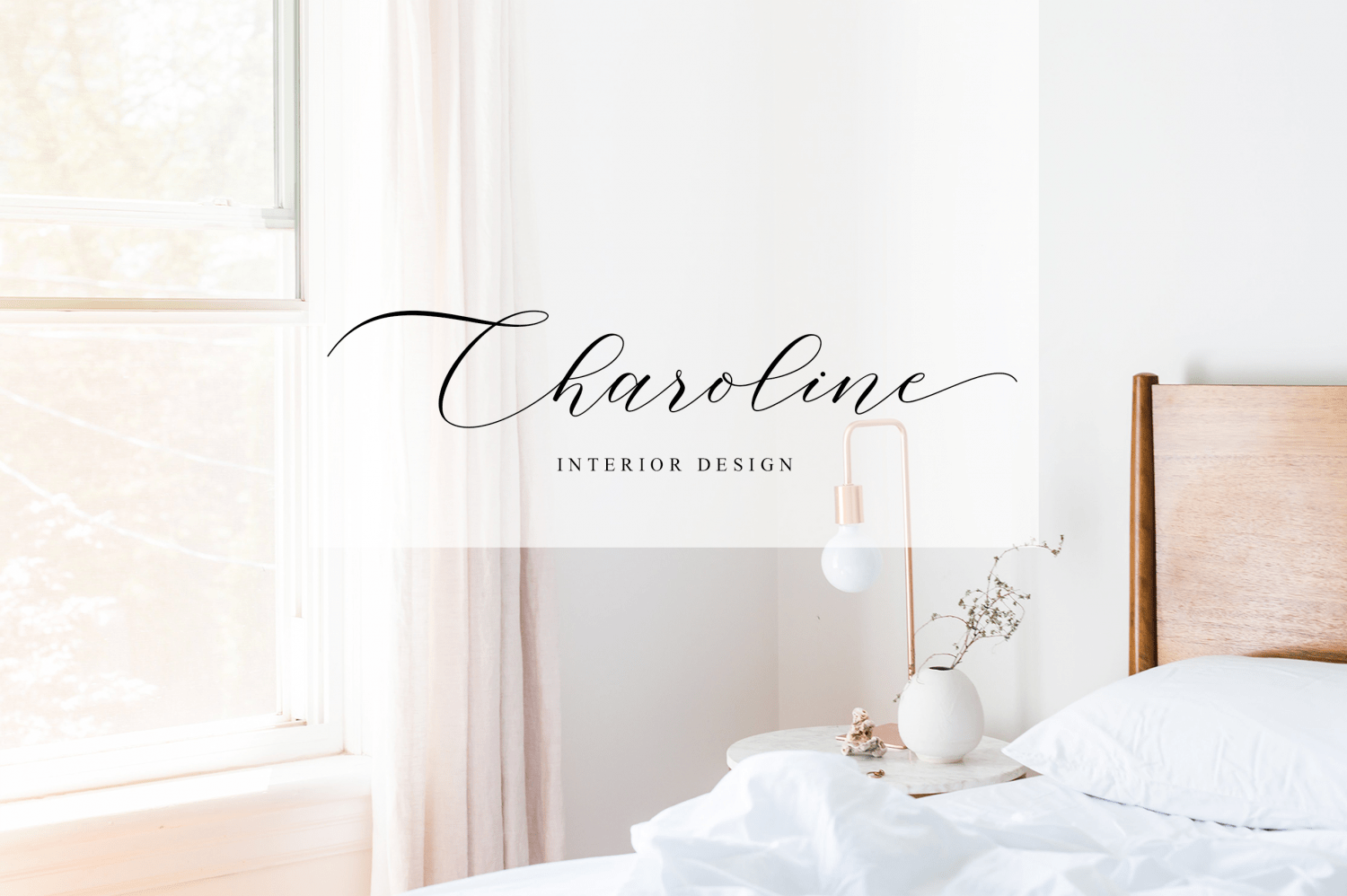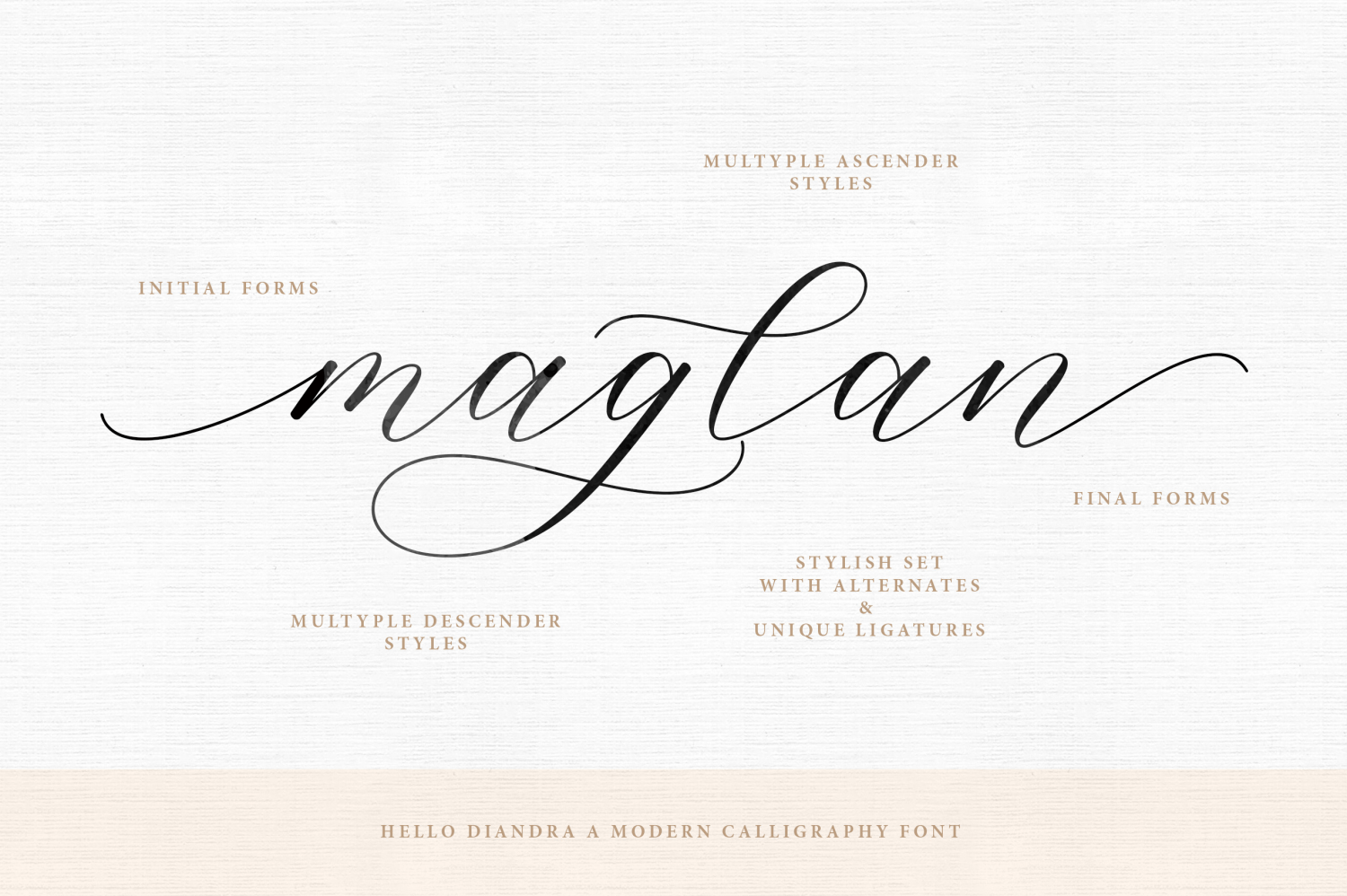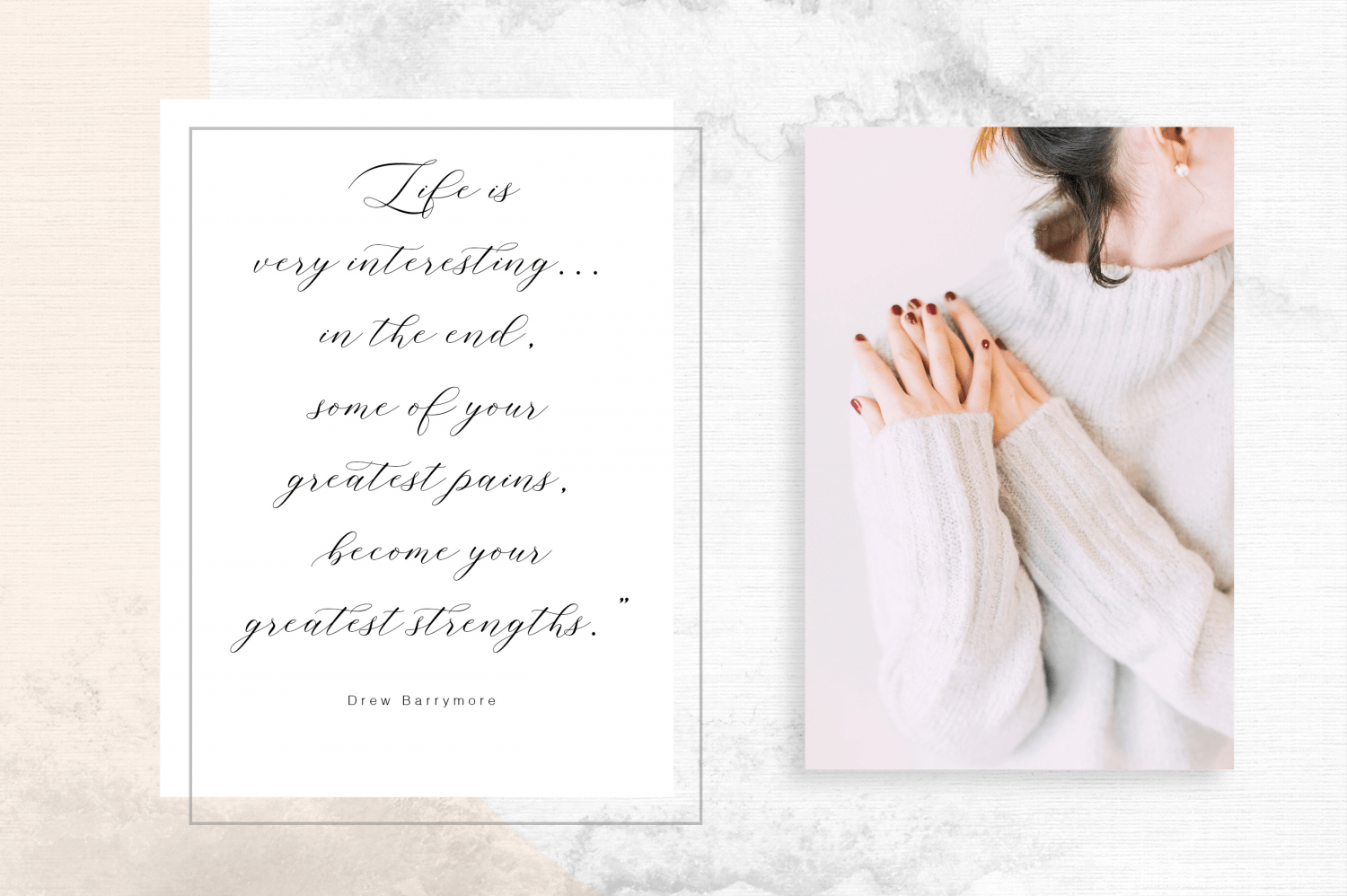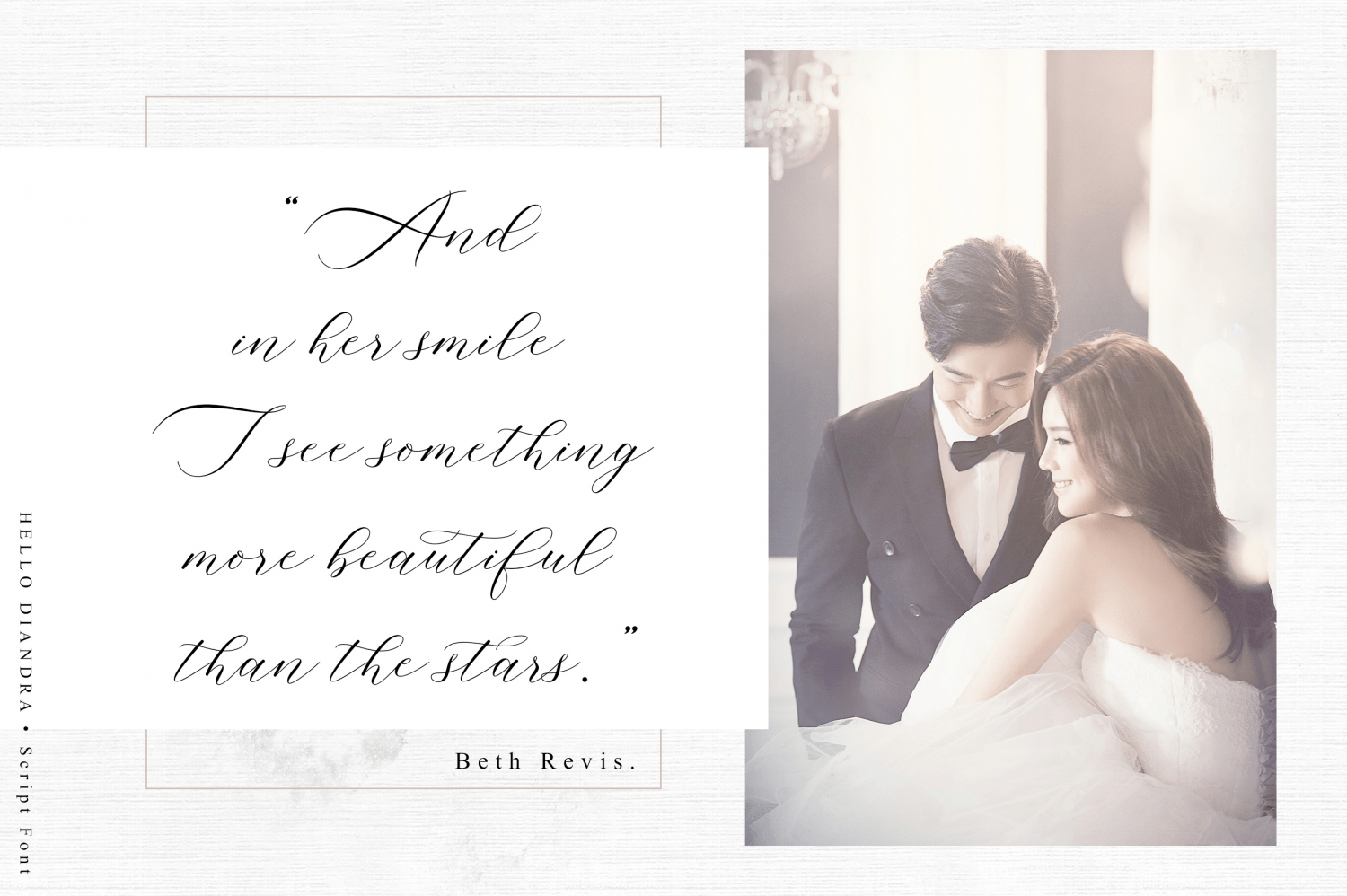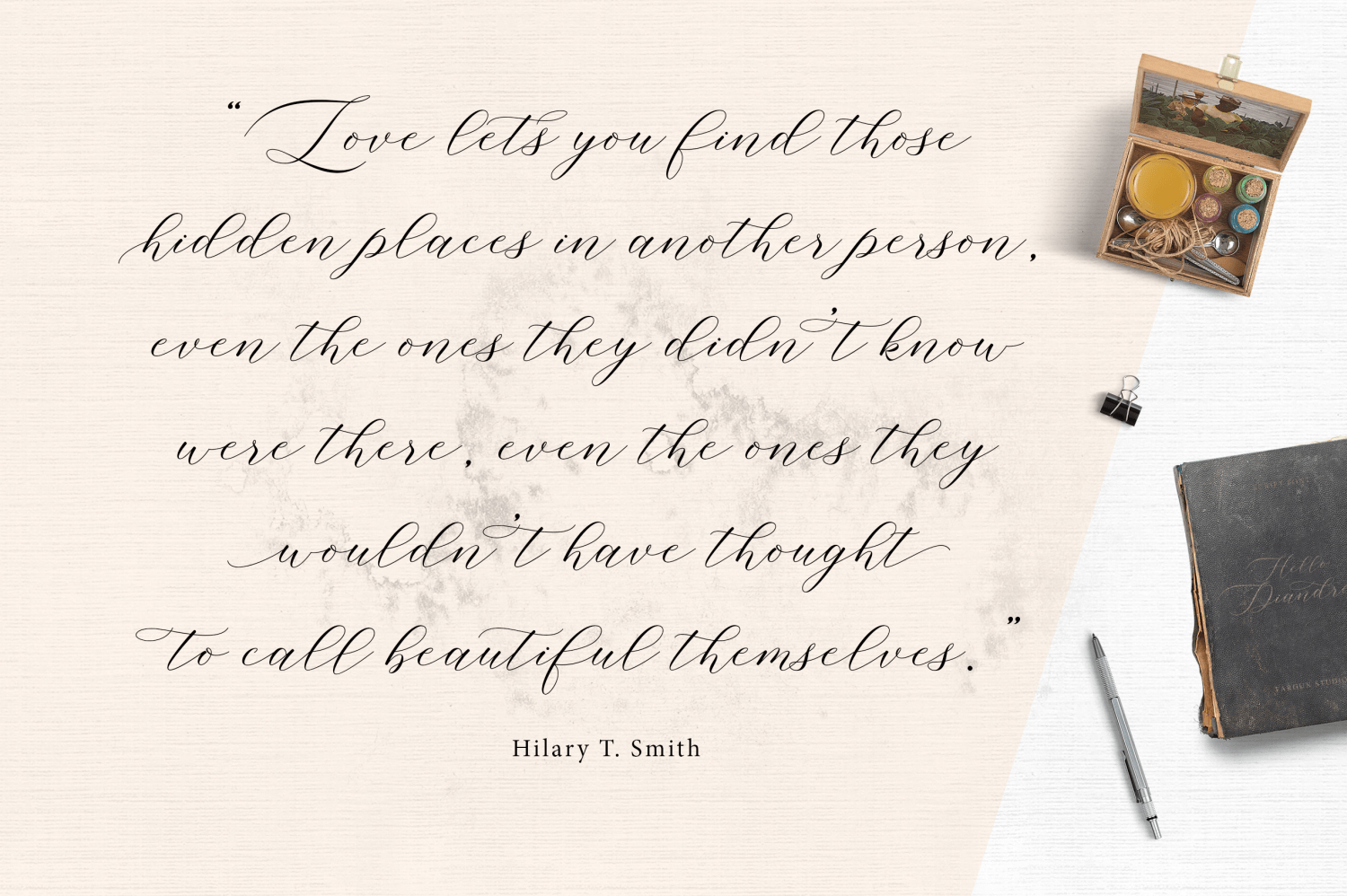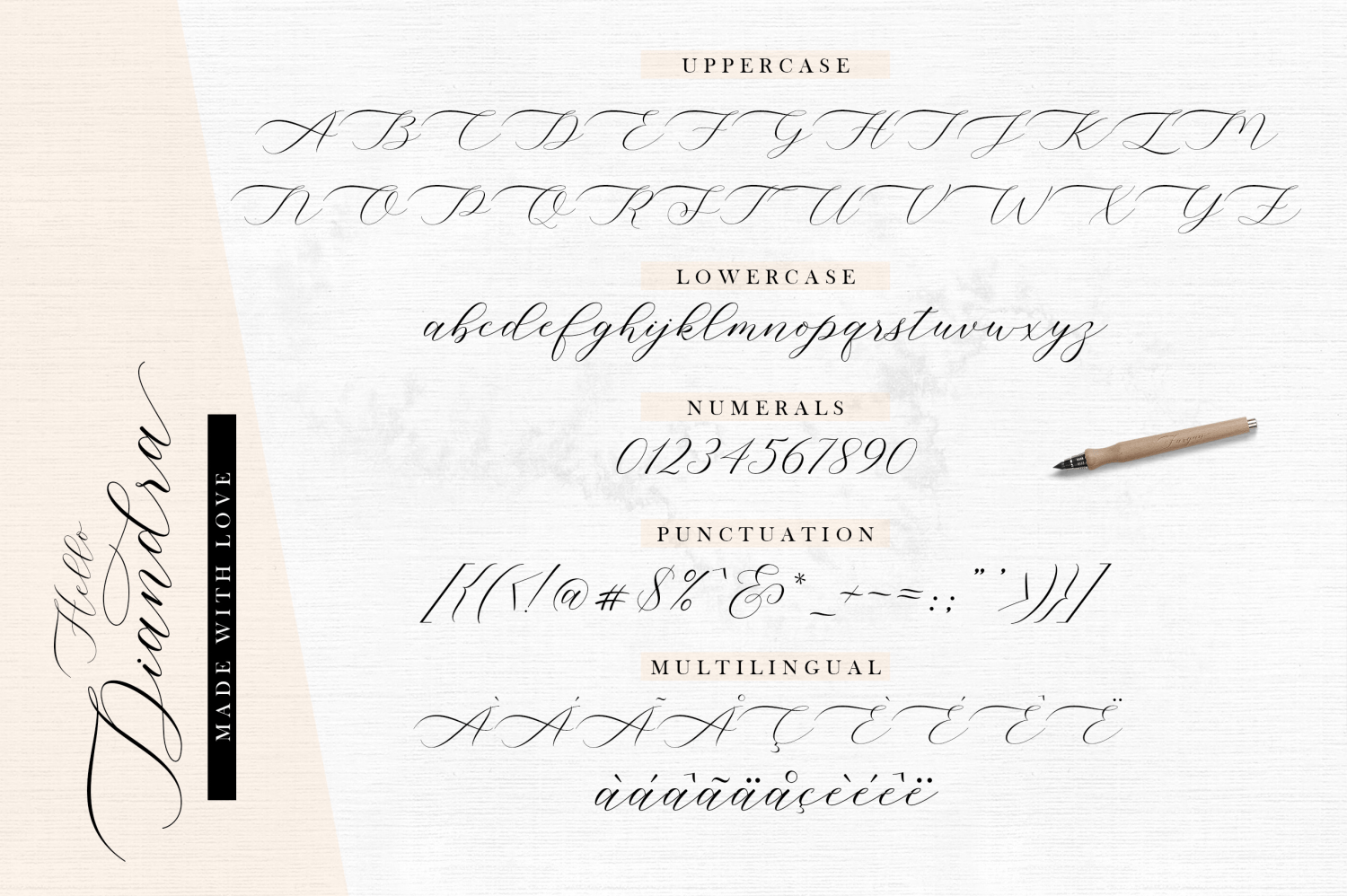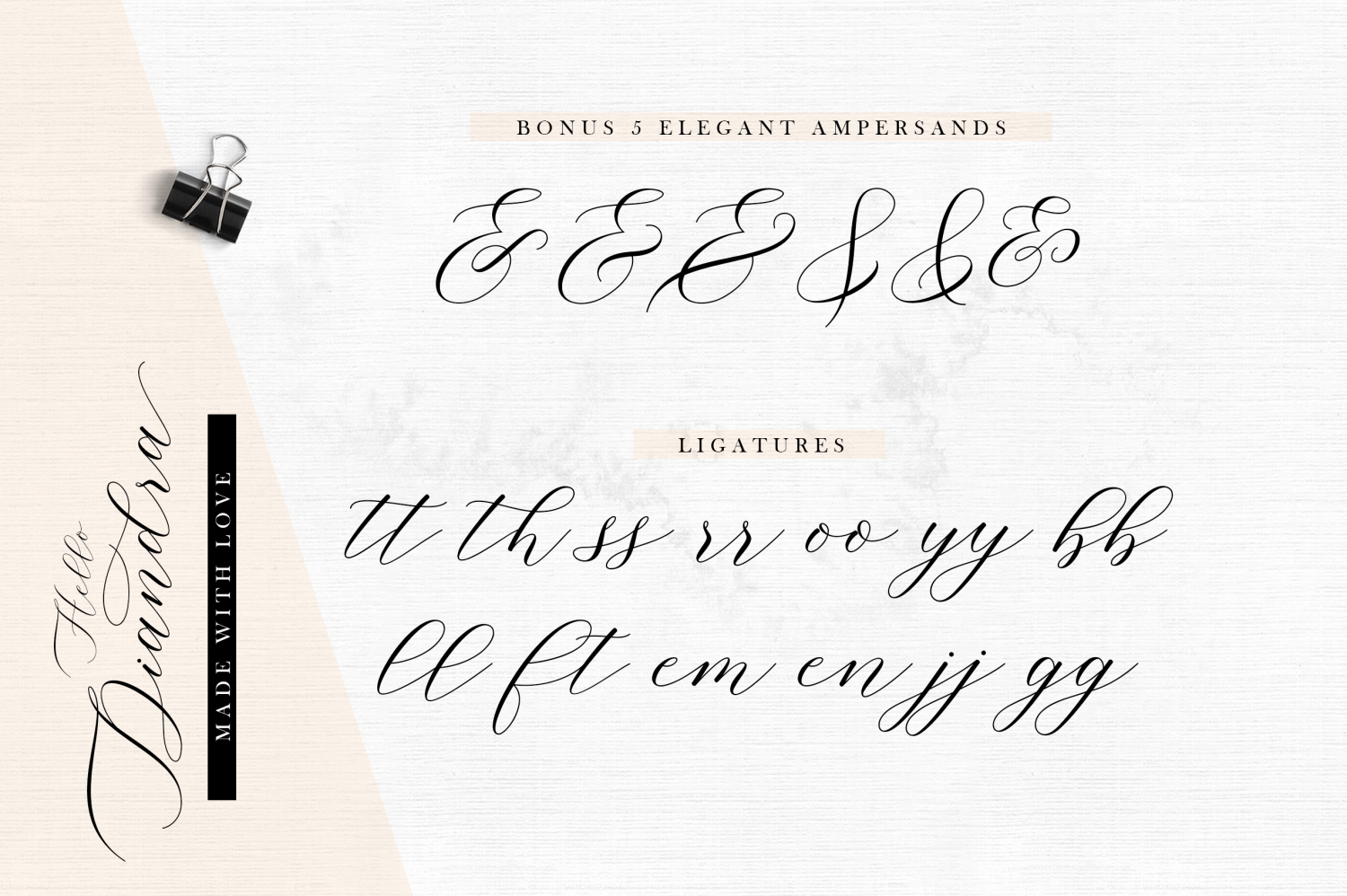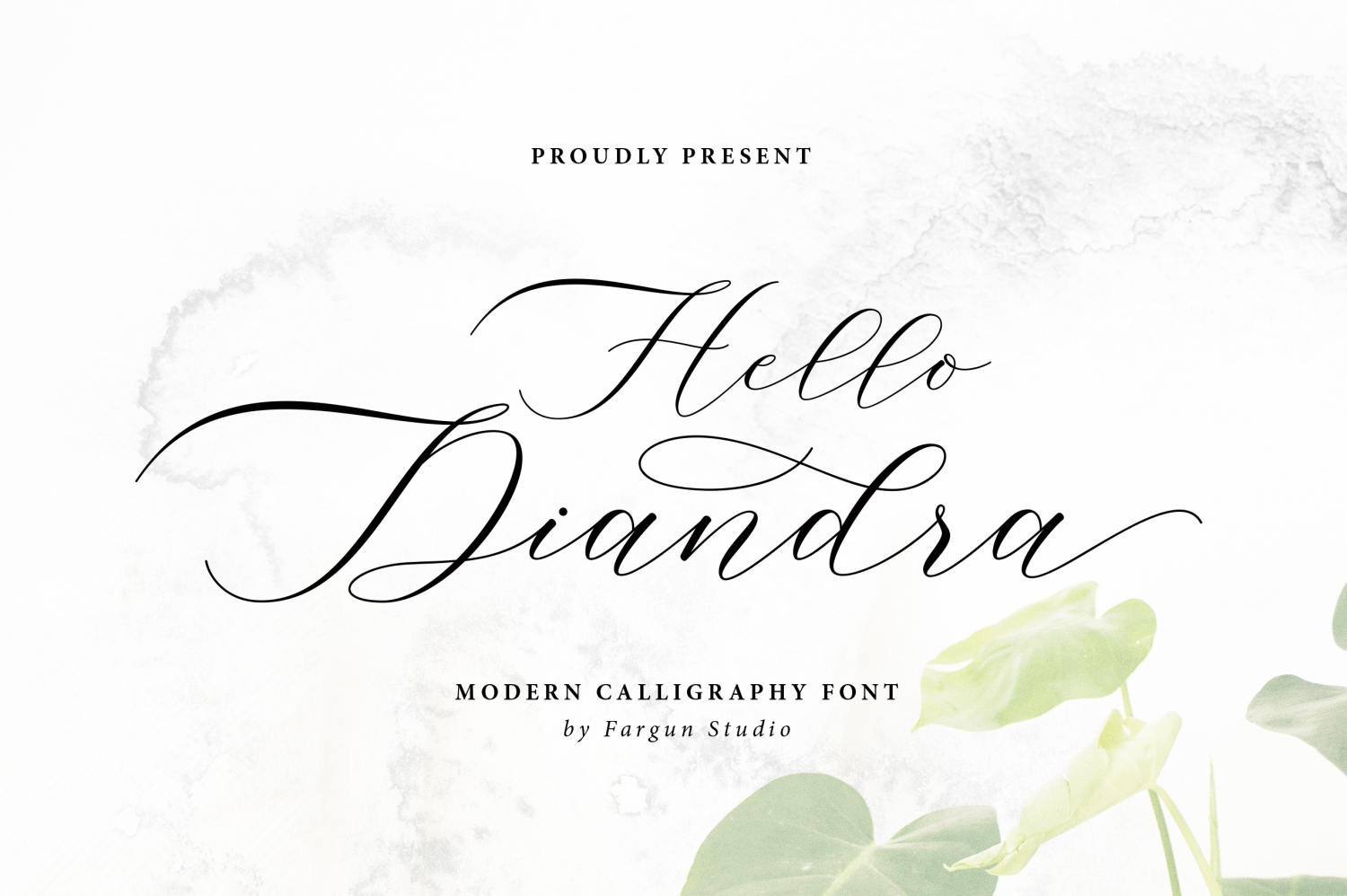
Hello Diandra
About Hello Diandra
Introducing! Hello Diandra Script – a new fresh & modern calligraphy style, decorative characters and a dancing baseline! So beautiful on invitation like greeting cards, branding materials, business cards, quotes, posters, and more design concept! Alternates…